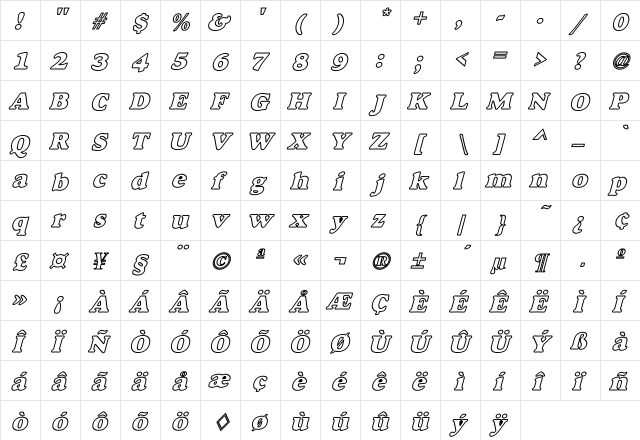
Alfredo Heavy Hollow Wide Bold Italic
Design Context for Alfredo Heavy Hollow Wide Typeface
Alfredo Heavy Hollow Wide offers clean, dependable letterforms without strong stylistic allegiance, making it a practical choice for designers who need flexibility. The slanted form adds forward momentum and visual energy. Its bold stroke weight gives it real presence on the page.